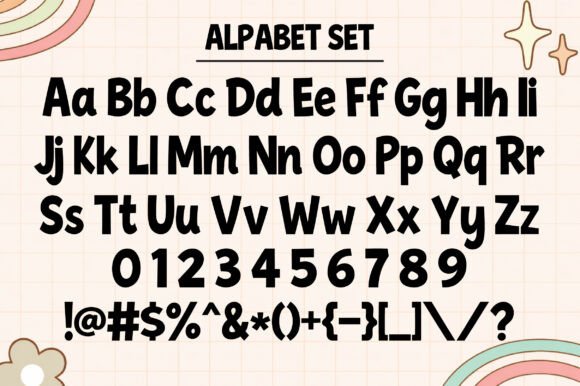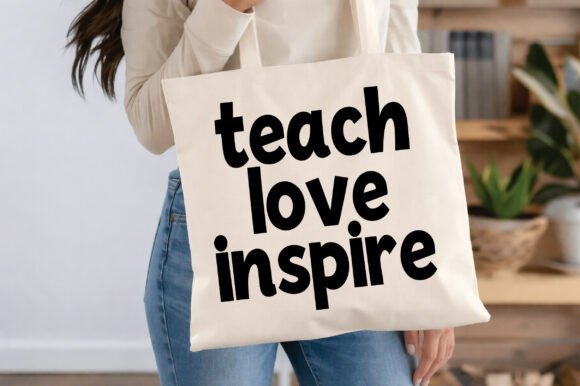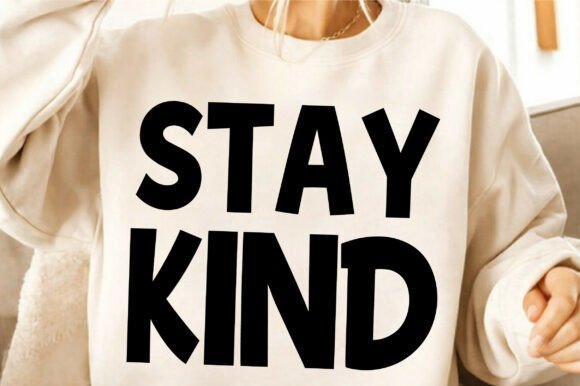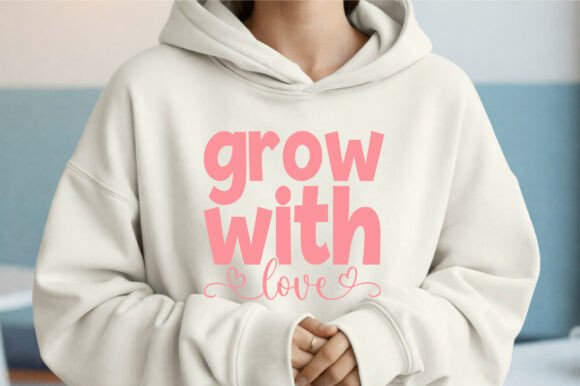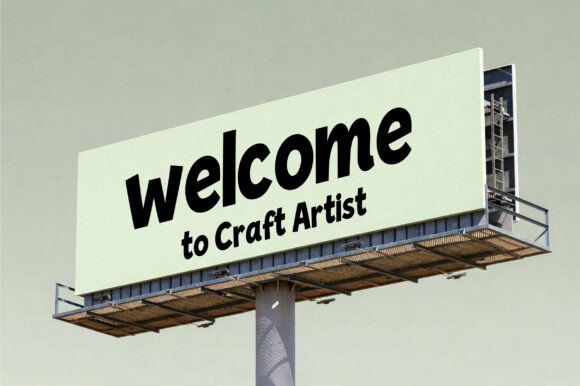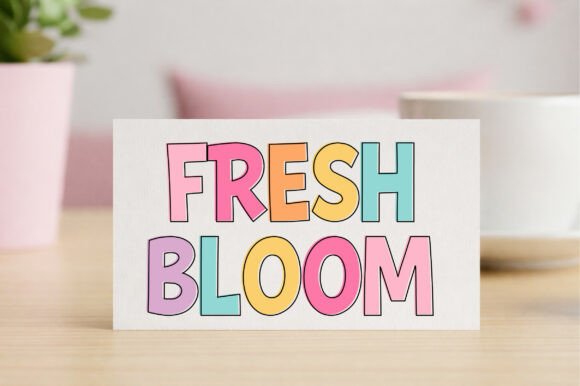
Introduction to Happy Chunky Font
Do you ever find yourself stuck in a creative rut, searching for that perfect font to elevate your design project? For many of us, that moment of inspiration strikes when we stumble upon a font that perfectly captures the essence of our vision. For designers, finding the right font can be a game-changer, making all the difference between a good design and a great one.
Enter Happy Chunky Font – a high-quality, free download that’s sure to bring a smile to your face. With its bold, chunky letters and playful personality, this font is perfect for adding a touch of whimsy to your creative project. Whether you’re designing for print or digital use, Happy Chunky Font is a valuable resource that’s sure to inspire your next design.
From eye-catching headlines to standout typography, Happy Chunky Font is the perfect tool for designers looking to add a creative touch to their work. With its transparent background and versatile design, this font is ideal for a wide range of projects – from kids’ projects and birthday invitations to social media graphics and packaging designs. So why settle for a dull design when you can add a dash of fun and personality with Happy Chunky Font?
Key Features of Happy Chunky Font
- High-quality design resource ideal for creative projects, including digital art and print materials.
- Unique, chunky design with a transparent background, making it easy to customize and integrate into any design.
- Supports a wide range of languages, including Latin, Cyrillic, and Greek, making it a versatile choice for global projects.
- Resolution-independent, ensuring crisp and clear display on high-resolution screens and prints.
- Suitable for a variety of design applications, including logos, typography, and graphics, due to its bold and playful style.
Honest Review: Happy Chunky Font
I recently came across the Happy Chunky Font while searching for a design resource to add some personality to a creative project. At first glance, the font’s playful and chunky style caught my attention, and I was excited to dive deeper.
What works well about the Happy Chunky Font is its versatility. The font is available for free download, which is a huge plus for designers on a budget. The transparent background makes it easy to use in various design applications, and the high-quality design ensures that it looks great in both digital and print formats. The font’s chunky style also makes it perfect for creating eye-catching headings and titles.
Here are some of the font’s key features:
- Playful and chunky design style
- Perfect for creative projects and design applications
- The font may not be suitable for formal or professional projects
- The chunky style may be overwhelming in small text sizes
Overall, I’m impressed with the Happy Chunky Font. It’s a great addition to any design resource library, and its versatility makes it a great choice for a wide range of creative projects. With its playful style and high-quality design, it’s sure to add some personality to any design project.
Tips for Getting the Most Out of Happy Chunky Font
Use the font on a transparent background to create a fun and playful look. Experiment with different font sizes and colors to add visual interest to your design. You can also use the font in combination with other design elements to create a unique look.
The Happy Chunky Font is perfect for use in social media graphics, party invitations, and other creative projects. You can also use the font to add a playful touch to your branding and marketing materials.